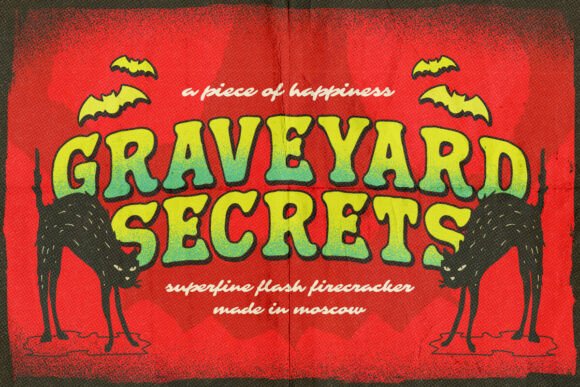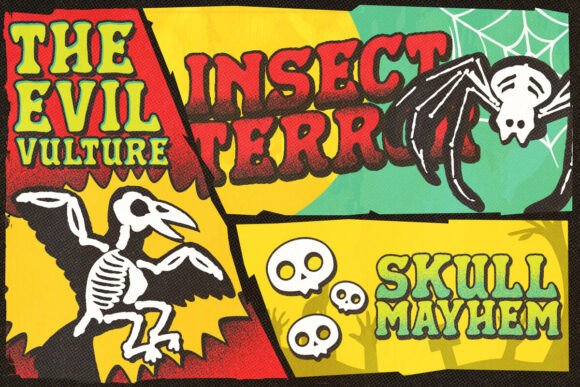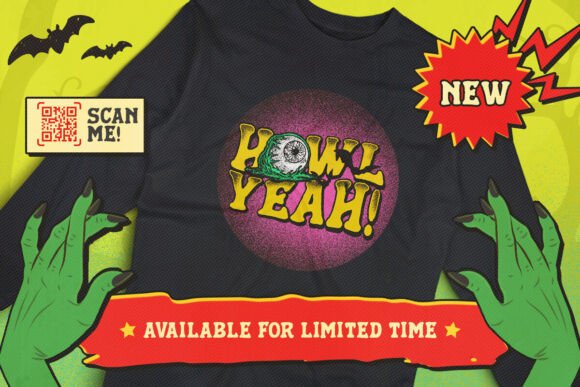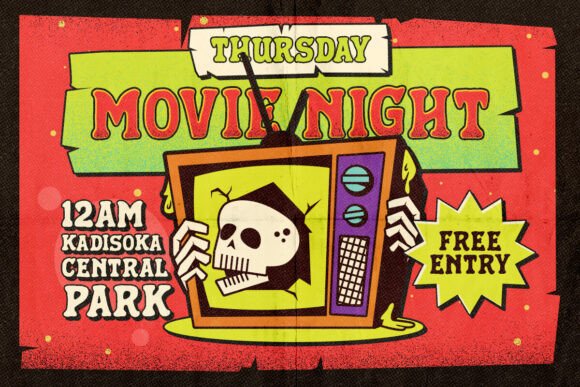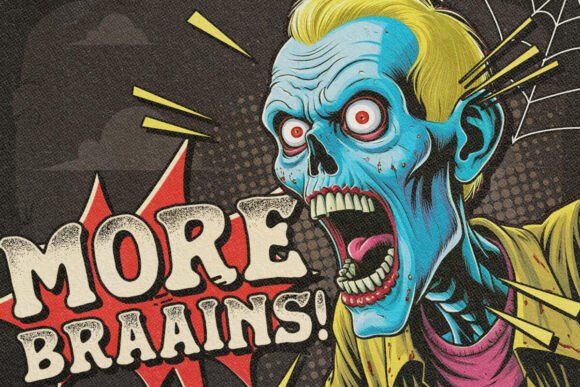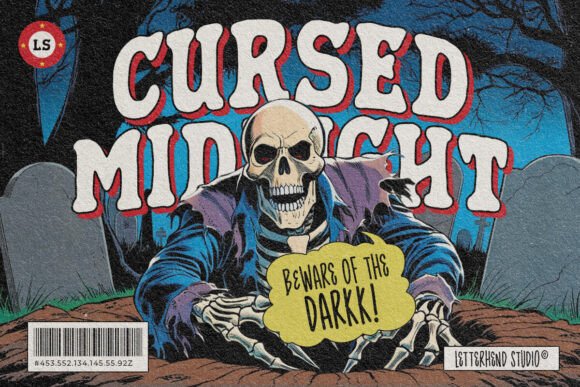
Unleash the Mystery: Introducing Haunted Night Font
As a designer, have you ever stared at a blank canvas, waiting for inspiration to strike? The night hours can be the most creative, and it’s in these moments that ideas start to flow. I recall a particular instance when I was working on a project and the Haunted Night Font caught my eye. Its bold, classic letterforms seemed to whisper secrets of the past, drawing me in with an otherworldly allure.
The Haunted Night Font is a versatile display font designed for logos, formal invitations, and various advertising purposes. Its timeless appeal makes it a valuable addition to any designer’s toolkit. Whether you’re crafting a spooky atmosphere or adding a touch of elegance, this font is sure to captivate your audience. With its broad range of applications, Haunted Night Font is a must-have for designers looking to add a touch of mystery to their work.
Haunted Night Font Key Features
- Unique Characteristics: Distressed, spooky, and eerie aesthetic; includes various ghostly and haunted-themed glyphs and symbols
- Language Support: Latin, Cyrillic, and Greek alphabets, with support for extended characters and diacritics
Haunted Night Font Review
Overall, I think the Haunted Night Font is a great addition to any spooky-themed project. Here are some of its strengths:
- ✨ The font is incredibly atmospheric and sets the tone for a haunted atmosphere. It’s perfect for Halloween-themed designs, horror movies, or any other project that needs a touch of eeriness.
- ✨ The font comes in multiple weights, including light, regular, and bold, which makes it versatile for different design needs.
- ✨ The font is highly customizable, allowing designers to adjust the color, size, and spacing to fit their project’s requirements.
- ⚠️ The font may not be suitable for all types of projects, as it can be quite intense and overwhelming. It’s best used in projects where the spooky atmosphere is intentional.
- ⚠️ Some users may find the font difficult to read due to its unique letterforms and spacing.
- ⚠️ The font may not be compatible with all devices or platforms, which could cause issues with consistency and readability.
Overall, I would give the Haunted Night Font 4 out of 5 stars. It’s a great choice for designers who want to add a touch of eeriness to their projects, but it may not be suitable for all types of designs. With some careful consideration and customization, this font can be a real showstopper.
Tips for Getting the Most Out of the Haunted Night Font
To get the most out of the Haunted Night font, consider the following tips:
- Use the font for spooky or Halloween-themed designs.
- Pair the font with bold, dark colors to create a dramatic effect.
The Haunted Night font is commonly used for:
- Halloween-themed designs and invitations.
- Spooky or eerie-themed designs and posters.
- Horror movie or book-themed
Alternative Fonts for a Haunted Night Theme
Fontin is a sans-serif font that features a distressed and worn look, making it suitable for horror and spooky themes. It’s a great alternative to Haunted Night Font for designers who want a more modern and edgy feel.
Compared to Haunted Night Font, Fontin has a more contemporary look and feel, with a stronger emphasis on its distressed texture. While Haunted Night Font is more ornate and detailed, Fontin is cleaner and more minimalist.
Creepster
Creepster is a horror-themed font that features a creepy and eerie vibe. It’s perfect for designers who want to create a spooky atmosphere in their designs. Like Haunted Night Font, Creepster has a more ornate and detailed look, but with a more gothic and mystical feel.
Compared to Haunted Night Font, Creepster has a more pronounced and dramatic look, with a greater emphasis on its spooky and eerie feel. While Haunted Night Font is more versatile and can be used in a variety of designs, Creepster is more specialized and better suited for horror and spooky themes.
Skizzo
Skizzo is a distressed font that features a rough and weathered look. It’s a great alternative to Haunted Night Font for designers who want a more rugged and industrial feel. Like Haunted Night Font, Skizzo has a distressed and worn look, but with a more industrial and mechanized feel.